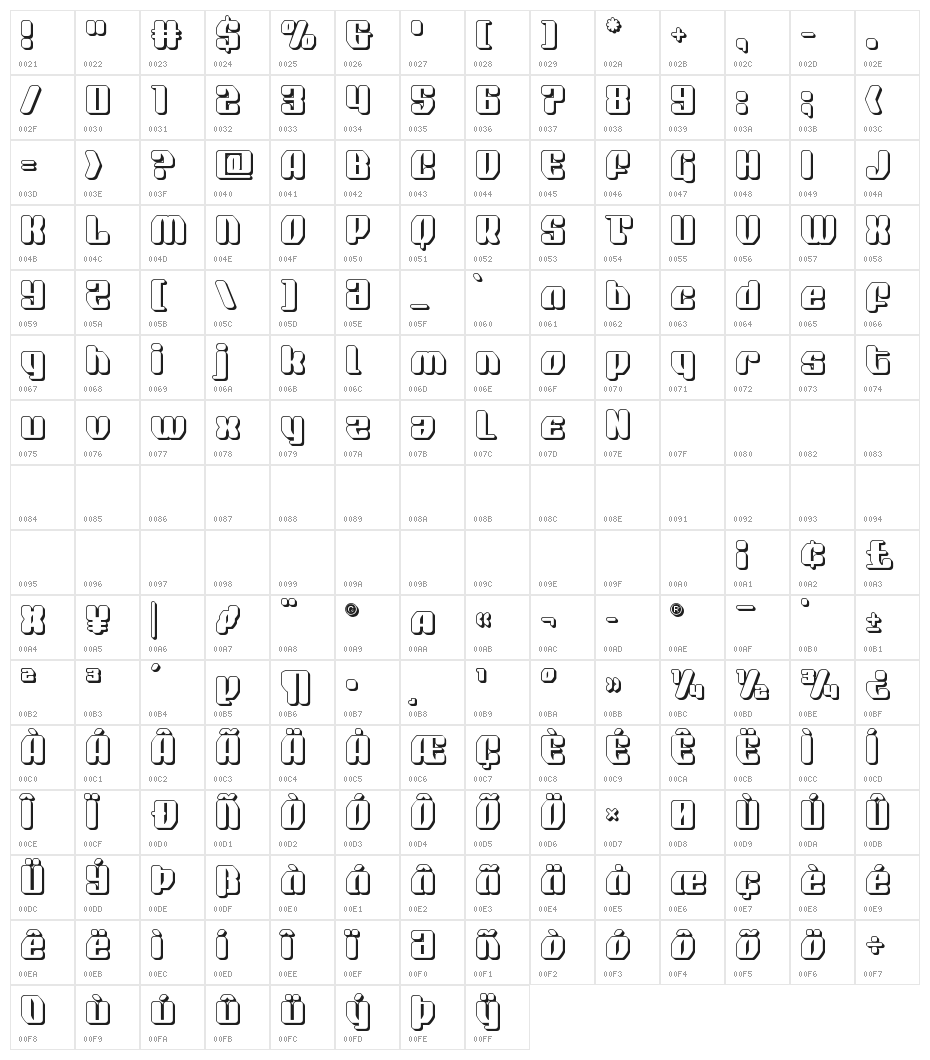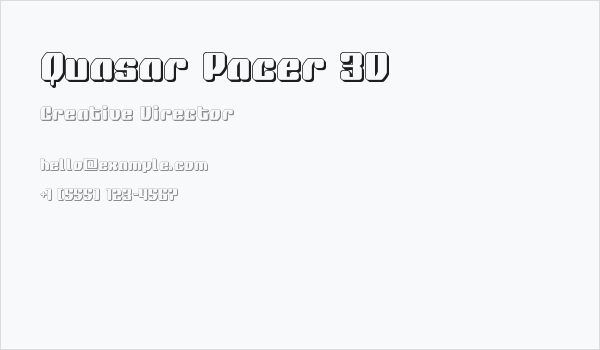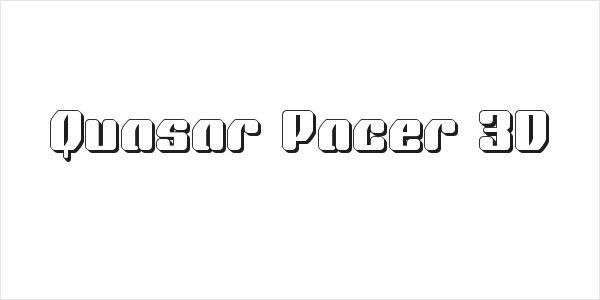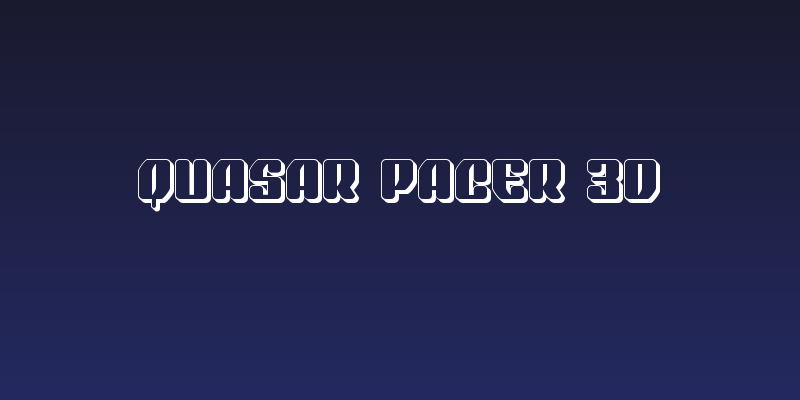
Quasar Pacer 3D Font
Quasar Pacer 3D Description
This font features a bold, three-dimensional appearance with a strong, shadowed outline that gives it a dynamic and impactful look. The characters are blocky and geometric, with a consistent thickness throughout, creating a sense of uniformity and strength. The uppercase and lowercase letters maintain a cohesive style, with rounded edges that soften the overall boldness. The numerals and special characters follow the same design principles, ensuring a harmonious and visually appealing set. This font's unique 3D effect makes it stand out, ideal for projects that require a modern and eye-catching typeface.